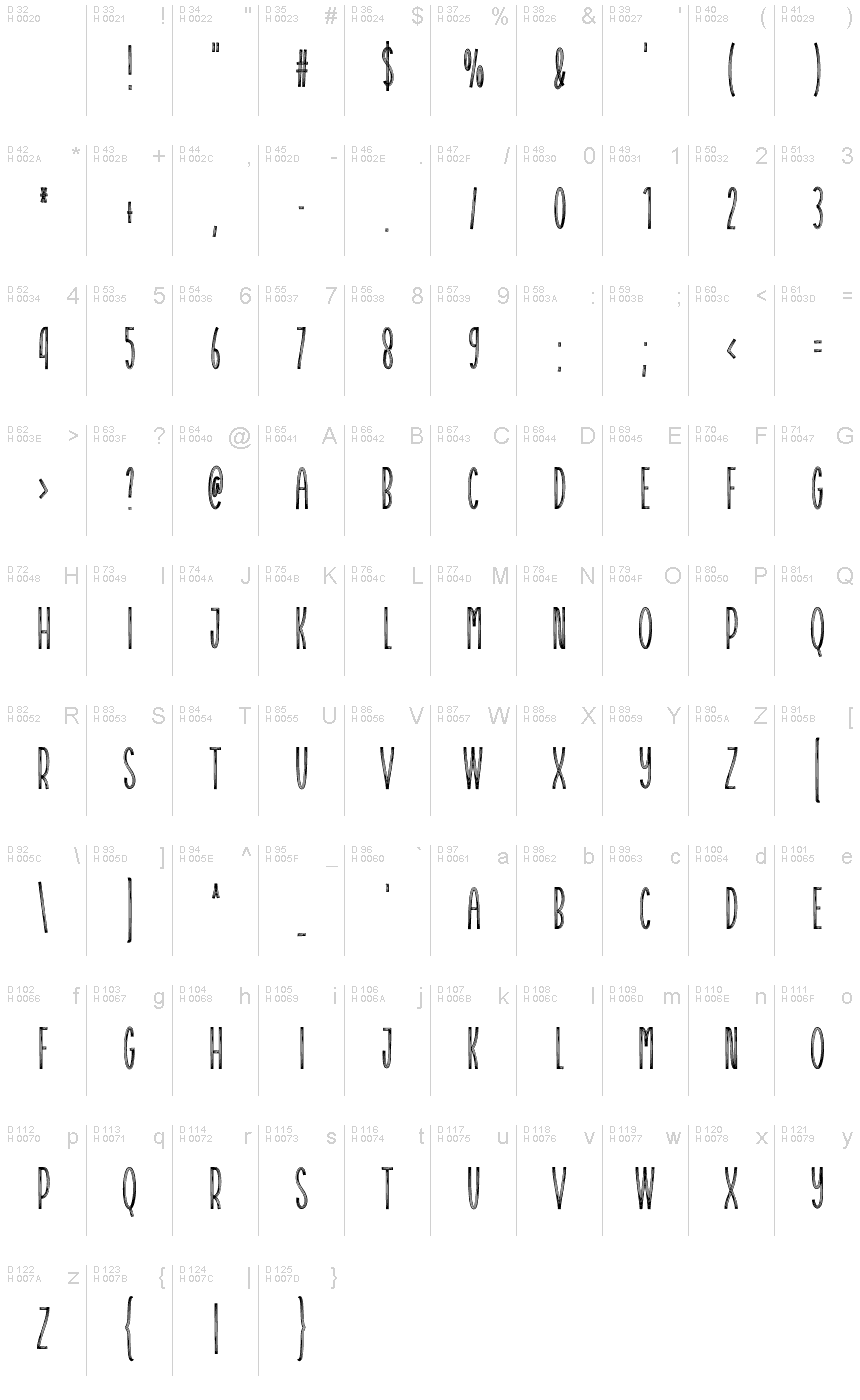
Thanks Santaclause
Discover the whimsical charm of Thanks Santaclause, a display font crafted by Scratchones that brings a sprinkle of holiday magic to every design. This semi-light, extra-condensed typeface is a gift that keeps on giving, perfect for those projects that demand an air of enchantment with a modern twist. With its playful yet sleek contours, Thanks Santaclause promises to elevate your creative endeavors – from festive advertising campaigns to heartwarming greeting cards.
Its unique personality shines in headlines and logos, where space is premium but impact is paramount. Let Thanks Santaclause be the secret ingredient in your typographic recipe for unforgettable visual storytelling.